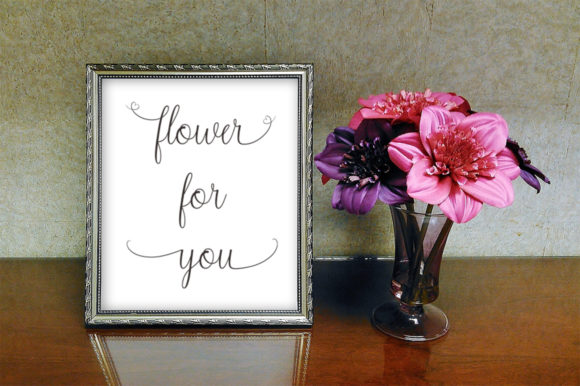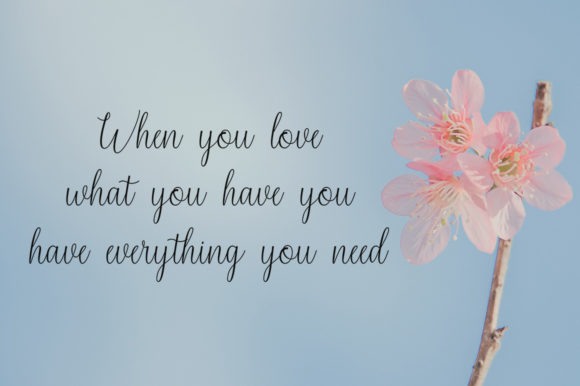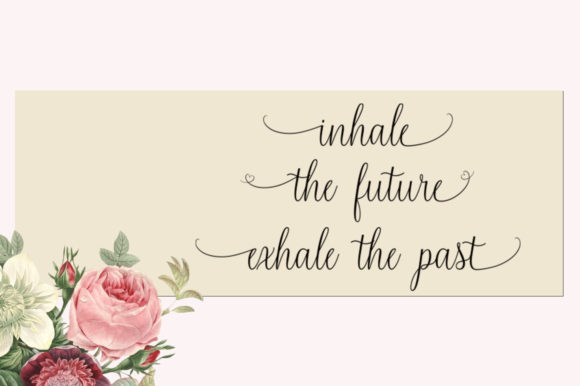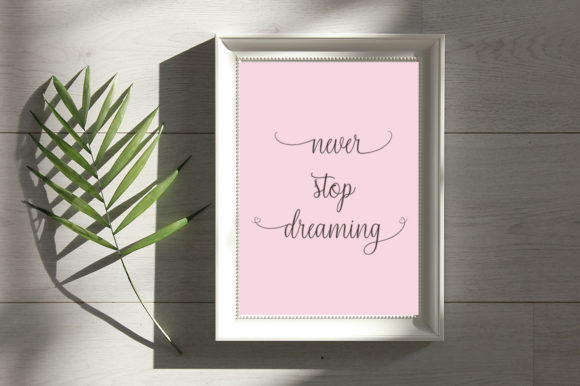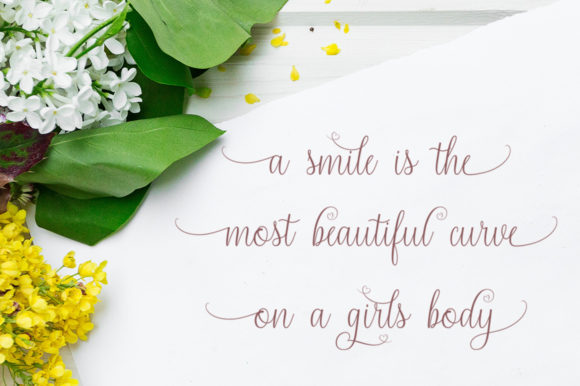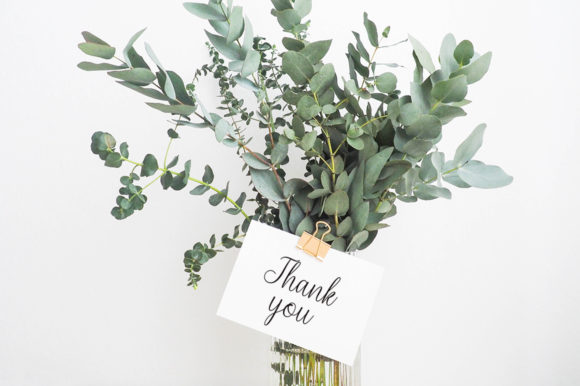
HomeScript FontsSyarlina Font Script Fonts Syarlina Font FacebookXPinterestWhatsApp Syarlina Font Poster 2 Syarlina Font Poster 3 Syarlina Font Poster 4 Syarlina Font Poster 5 Syarlina Font Poster 6 Syarlina Font Poster 7 About Syarlina Font Syarlina is a sweet and fun script with a sweet style. Get inspired by its unique charm! DOWNLOAD NOW People also explored Soul Christmas Font Steele Font Jodith Gladyse Font Hand Draw Font Suntown Font Summer Candy Font Final Destination Font Alternative SH Font Sequel Font 331 0 TagsSyarlina Font Previous articleRantca FontNext articleJeanne Petitténget Font LEAVE A REPLY Cancel reply Comment: Please enter your comment! Name:* Please enter your name here Email:* You have entered an incorrect email address! Please enter your email address here Website: Save my name, email, and website in this browser for the next time I comment. Personal Use Free Heartburn Personal Use Free Read more about this font Boby Personal Use Free Read more about this font Astagina Signature Personal Use Free Read more about this font Gupis Personal Use Free Read more about this font BLOG The 10 Best Handwriting Fonts to Add Personality to Your Designs 10 of the Best Handwriting Fonts for Adding Personality to Your Designs There will undoubtedly be no other better choice than handwriting fonts to give... Transform Your Website: Elevate Your Typography with 7 Best Web Font Generators Elegant Wedding Invitation Fonts – Handwritten & Script Fonts Using Fonts in Digital Marketing: Tips to Strengthen Your Brand Identity